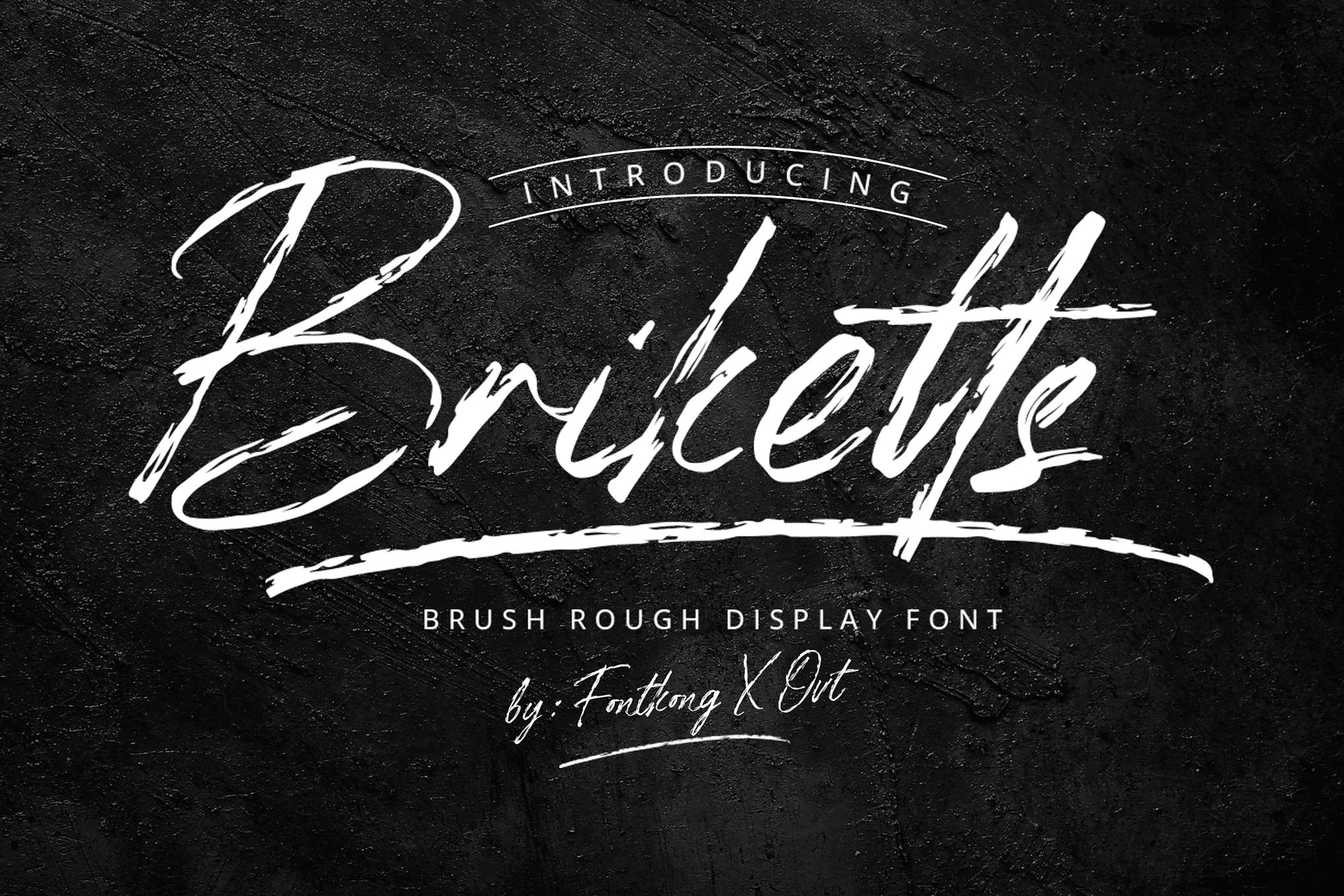
Briketts - Brush Rough Display Font
Perfect for bold headlines, posters, branding, packaging, social media graphics, and creative displays.
The Briketts - Brush Rough Display Font excites designers with its raw, energetic brush strokes and distressed texture that injects a dynamic, handcrafted feel into any project.
The Briketts - Brush Rough Display Font Free Download is a captivating typeface that combines rough brush textures with bold, impactful letterforms. Ideal for projects that require an authentic, edgy vibe, Briketts brings a sense of movement and personality to your designs. Whether you’re creating attention-grabbing posters, expressive branding, or standout social media posts, this font delivers.
One of the key strengths of Briketts - Brush Rough Display Font is its unique balance of roughness and readability. Despite its distressed brush style, the font remains clear and effective for display text, ensuring your message pops without losing clarity.
In branding, Briketts conveys creativity, energy, and authenticity. It pairs wonderfully with vibrant colors, textured backgrounds, and bold layouts, helping brands create a memorable and dynamic visual identity.
For digital projects, this font enhances website headers, digital advertisements, social media visuals, and promotional materials with its striking brush style. Its expressive character ensures your digital presence stands out with originality and flair.